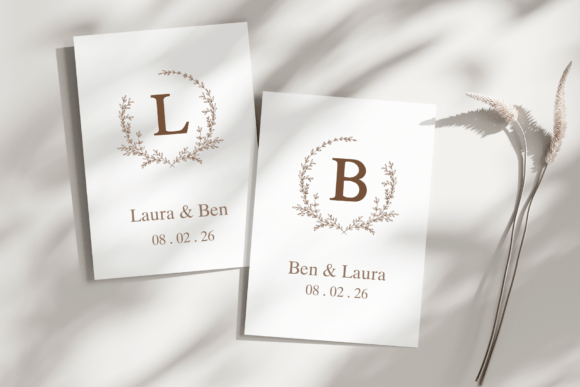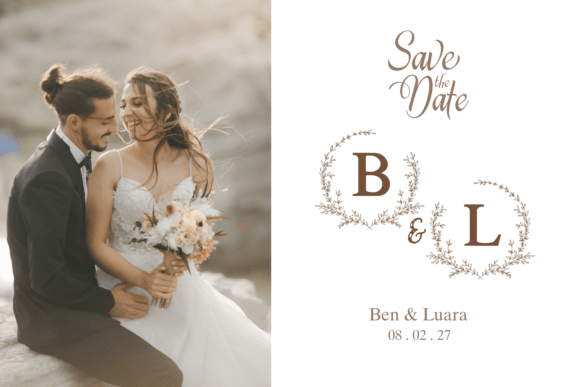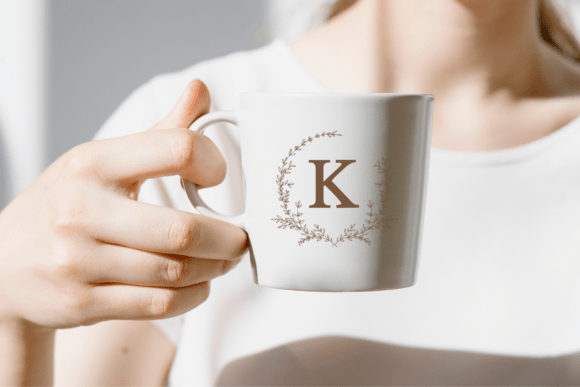
Lena Monogram Font
About the Lena Monogram Font
Step up your design game with Lena Monogram Font, a font that exudes confidence and style. Lena Monogram is an elegant font designed for special occasions. It features decorative letters inside a beautiful leaf frame, making it perfect for invitations and wedding cards. This font adds a touch of charm and sophistication to any celebration!
Lena Monogram’s ornate style is best suited for projects requiring a touch of vintage elegance. It excels in headlines, logos for boutique businesses, and short-form text on stationery, wedding invitations, or luxury product packaging. Avoid using it for body text or extended paragraphs; its decorative nature hinders readability at smaller sizes.
The font’s personality is undeniably sophisticated and romantic. To maintain this feel while ensuring readability, pair Lena Monogram with a clean sans-serif like Lato for body copy or a simple serif like Merriweather for supporting text. For a more modern contrast, consider pairing it with a geometric sans-serif such as Montserrat.
For projects emphasizing a vintage aesthetic, a script font such as Great Vibes would enhance its charm. Conversely, using a bolder, more modern sans-serif could create a striking juxtaposition, perfect for branding that blends classic elegance with contemporary style.
Lena Monogram Font Usage Examples
Lena Monogram Font Example